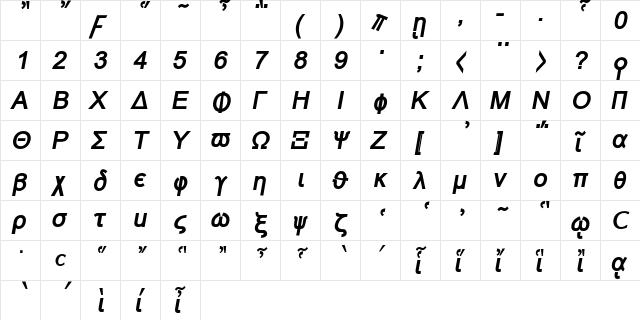
Naxos BoldItalic Font Preview
Design Context for Naxos Typeface
Naxos offers clean, dependable letterforms without strong stylistic allegiance, making it a practical choice for designers who need flexibility. The dynamic lean of this cut emphasises speed and emphasis in any layout. The heavy weight commands attention and anchors typographic hierarchies.
Pro Tip: Try Naxos for annotation and caption copy alongside an upright companion — the contrast in angle creates a dynamic but ordered typographic system.